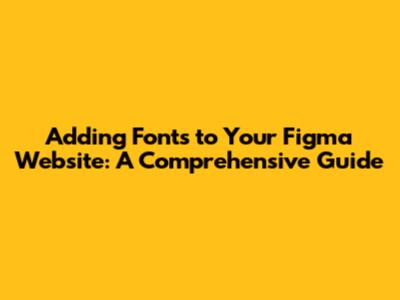
- Open Figma and Select Your Text: First, select the text layer where you want to apply the font. You can select the text directly on your design canvas or by clicking on the layer in the Layers panel. Figma's user-friendly interface makes it easy to find and select the text you want to customize. Choose your font, and you are ready to get started!
- Access the Text Properties Panel: Look for the Text panel on the right side of the Figma interface. If it's not visible, make sure the text layer is selected. In the Text panel, you will find various options for customizing your text, including font selection, size, weight, and more. This panel is your control center for all things text-related!
- Browse and Select a Google Font: Click on the font dropdown menu in the Text panel. This will open a list of available fonts. You'll find Google Fonts listed in this dropdown. Browse through the available Google Fonts, and click on the font you want to use. You'll see the font immediately applied to your selected text. This is a very easy process, and you can see your design transform instantly!
- Activate Your Fonts: Before using Adobe Fonts in Figma, you'll need to activate them through the Adobe Fonts website. Log in with your Adobe ID, browse the available fonts, and click the
Hey guys! Ever wondered how to jazz up your Figma website with some cool fonts? You're in luck! Adding fonts to your website in Figma is super important if you want to make it look unique. This article is your one-stop shop for everything you need to know. We will be exploring the easiest methods. Figma is a great tool for designers, allowing you to create beautiful website layouts. But what if your website has all of the cool layouts but lacks the stylish fonts to go with it? We'll dive into the basics, explore different font sources, and guide you through the process step-by-step. Get ready to transform your website with a fresh, new look!
Why Fonts Matter in Figma
Alright, let's talk about why fonts are so darn important. Think about it: fonts aren't just letters on a screen. They're a form of visual communication that can make or break your website's appeal. Choosing the right font can do wonders for your site. The font can set the mood, convey your brand's personality, and improve readability. Want your website to look friendly and approachable? Choose a font that reflects that! Need something more serious and professional? There's a font for that too. Essentially, the font is the soul of a website, and a good font will enhance the user experience.
First impressions are crucial, and fonts play a massive role in creating them. When visitors land on your website, the first thing they see is the text. If the font is hard to read or doesn't match the overall design, it can instantly turn them off. On the other hand, a well-chosen font that complements your website's design can draw your users in, keep them engaged, and leave a positive impression. Fonts also heavily impact readability. If your text is difficult to read, users will quickly bounce off your website. The goal is to make sure your website is easy to read. A good font will make your website much more accessible.
Moreover, fonts contribute to your branding. Your website's font should align with your brand's voice and identity. It is another way to stand out. When you consistently use the same fonts across all your design materials, it reinforces brand recognition and creates a cohesive brand experience. Think of popular brands like Coca-Cola or Apple – their unique fonts are instantly recognizable. By carefully selecting and implementing fonts, you can establish a strong brand identity and ensure that your website reflects your unique personality. By using fonts correctly, you can make a huge impact!
Where to Find Your Fonts
So, where do you find these magical fonts? Lucky for you, there's a huge library of fonts out there. We will be discussing some of the most popular sources. Let's find out what you need.
Google Fonts
First up, we have Google Fonts. It's the go-to resource for a lot of people, and for good reason! This is the most popular resource. Google Fonts is a treasure trove of free, open-source fonts that you can easily use on your website. They're incredibly accessible, and easy to integrate with Figma. You can browse through a massive selection of fonts, filter by different styles, and find the perfect match for your design. Plus, Google Fonts is constantly updated, so you'll always have access to new and exciting options. It is really easy to use, and you can get started right away!
Adobe Fonts
Next, there's Adobe Fonts, formerly known as Typekit. If you're an Adobe Creative Cloud subscriber, you've got access to an enormous library of high-quality fonts. Adobe Fonts offers a wide range of fonts, from classic serifs to modern sans-serifs, and includes licenses for commercial use. This is perfect for those that want to have a professional look. The integration with Figma is seamless. It lets you activate and use your chosen fonts directly within your designs. It is perfect if you are already using Adobe products.
Other Font Sources
Okay, there are other cool places to get your fonts! There are many other font marketplaces, such as MyFonts and FontShop. Both have amazing fonts, ranging from free to premium. They often have unique and stylish fonts you won't find anywhere else. They also have a very extensive library of fonts. You can also explore font foundries that specialize in unique, handcrafted fonts. Consider these options if you're looking for something out of the ordinary.
Adding Fonts to Figma: The Easy Way
Adding fonts to your Figma website is super easy. Follow these simple steps to bring your design to life!
Using Google Fonts in Figma
This method is super easy. Let's get started!
Using Adobe Fonts in Figma
If you have an Adobe Creative Cloud subscription, here is how you can use them: